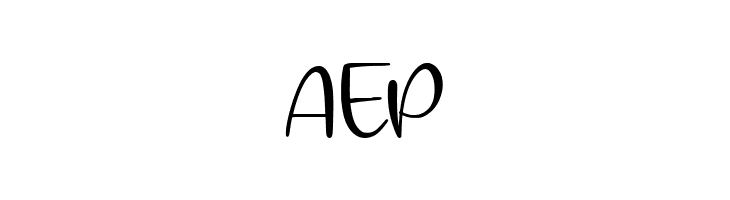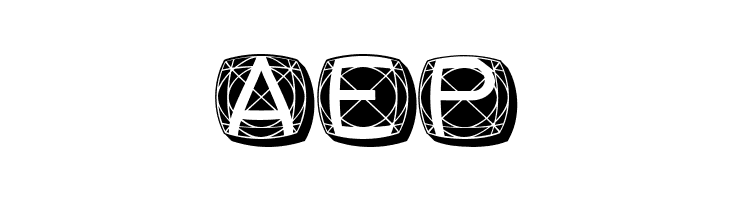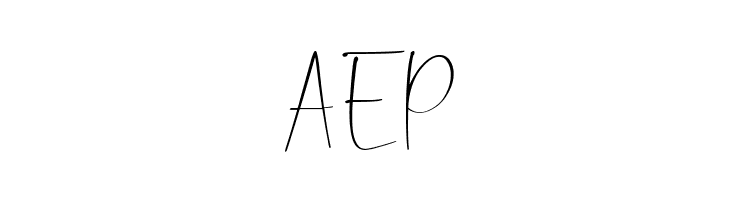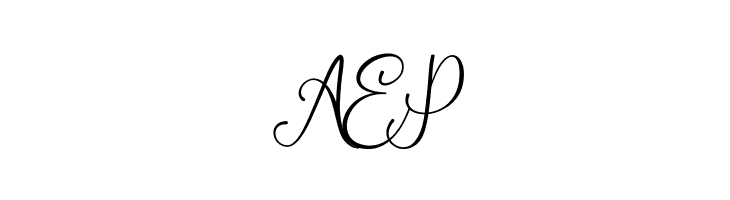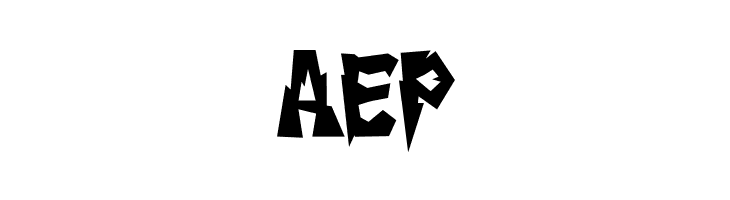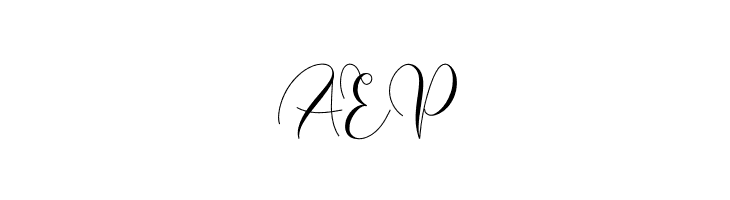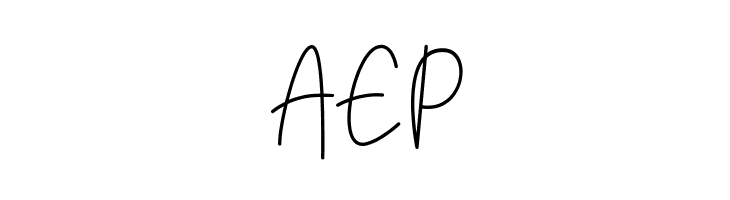
A graceful, cursive script font with elegant, flowing strokes.
A bold, jagged font with sharp, angular shapes and an edgy appearance.
A playful handwritten font with thin, flowing lines and whimsical letterforms.
A playful and modern font with bold, slightly condensed uppercase letters and whimsical lowercase letters.
A playful, handwritten font with a smooth, flowing style.
A playful handwritten font with fluid, connected strokes and a casual style.
An elegant script font with flowing, intricate loops and swashes.
A bold, geometric font with characters enclosed in rounded squares and intricate line patterns.
An elegant and flowing script font with intricate decorative elements.